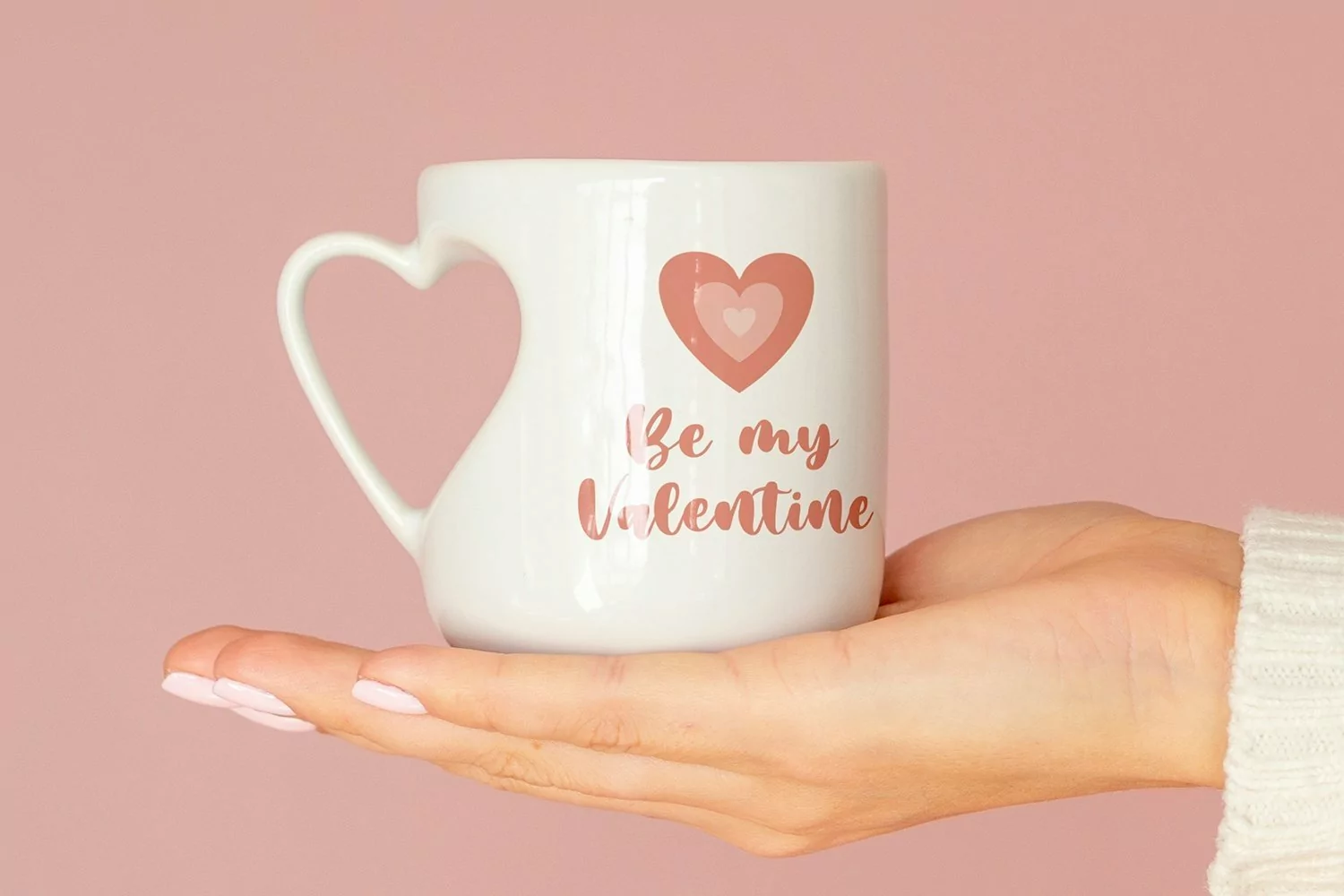
Web Font Pretty Blossom - Cute Handwritten Font that has a distinctive character that is very thick and elegant to use
Pretty Blossom is a relaxed and flowing Calligraphy Font. Incredibly versatile, this font fits a wide pool of designs, elevating them to the highest levels. Add this font to your favorite creative ideas and notice how it makes them come alive!